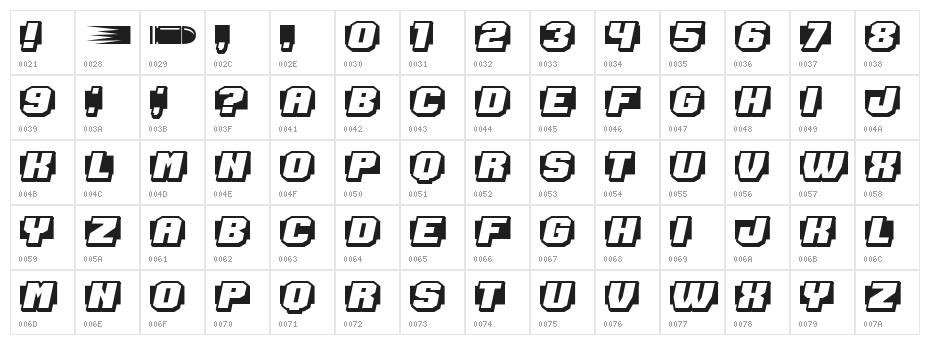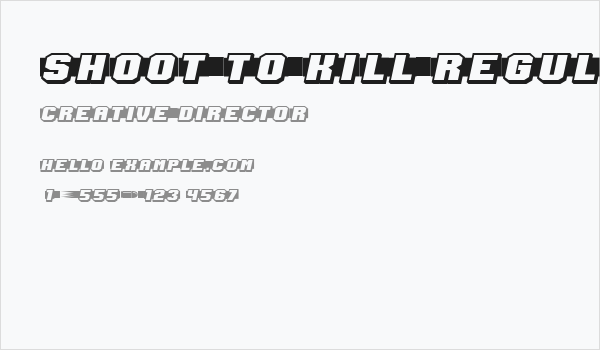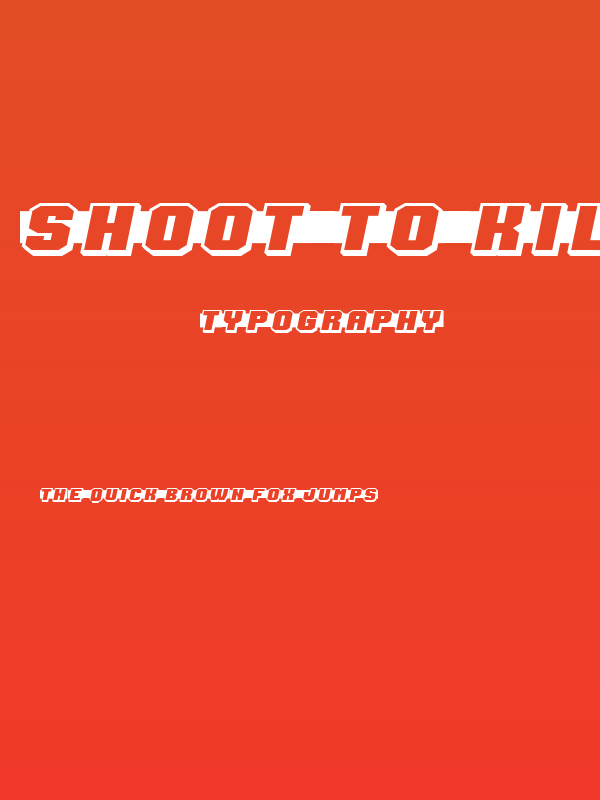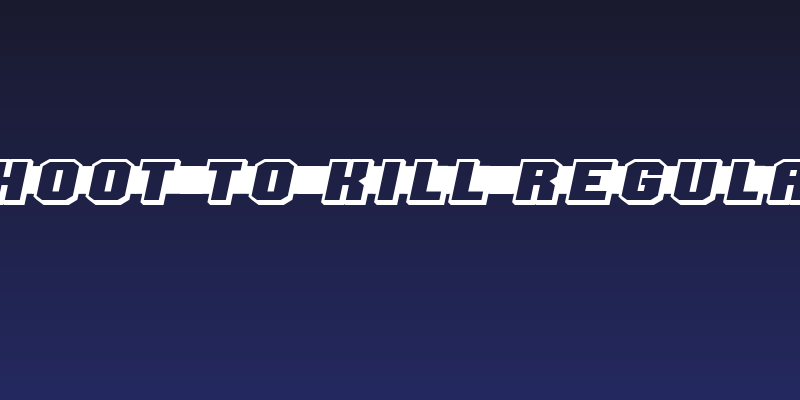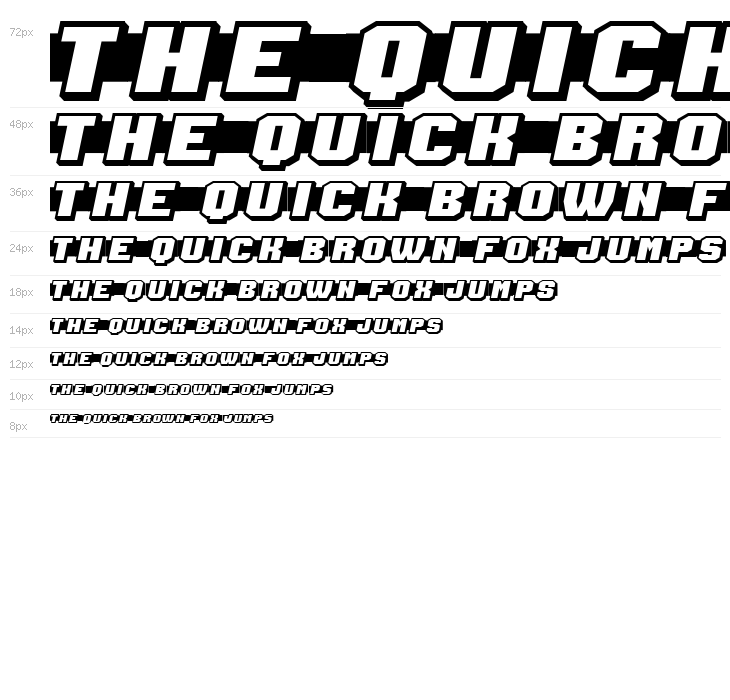
Shoot to Kill Regular Font
Shoot to Kill Regular Description
This font features a bold and impactful design with a strong, dynamic presence. The characters are outlined with a thick black shadow, giving them a three-dimensional effect that enhances their visibility and makes them stand out. The uppercase and lowercase letters maintain a consistent style, characterized by sharp angles and a slightly condensed form. The numbers follow the same design principles, ensuring uniformity across all characters. Special characters are creatively integrated, with unique designs that complement the overall aesthetic. This font is ideal for projects that require a bold statement and a sense of action or urgency.
Proposed ProjectsIdeal for video game titles, action movie posters, sports branding, and dynamic advertising campaigns.